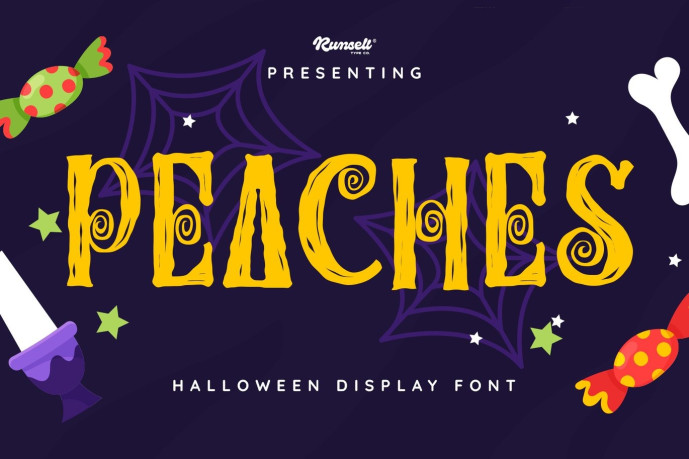
Peaches – Halloween Font
Peaches is a captivating Halloween display font decorated with twisted spirals, rough edges, and playfully creepy details. Its eccentric shapes bring instant character to a scary poster, horror movie title, spooky celebration, monster artwork, candy packaging, merchandise, and imaginative seasonal branding.
Peaches captures the feeling of an evil witch casting a mysterious spell inside a dark gothic tale of death. Combining witchy magic with an energetic personality, it is an excellent choice for mystery and thriller covers, haunted attractions, party invitations, logos, and delightfully wicked designs.
Spooky Letters, Killer Style. Make your Halloween designs scream with our hauntingly creative font.